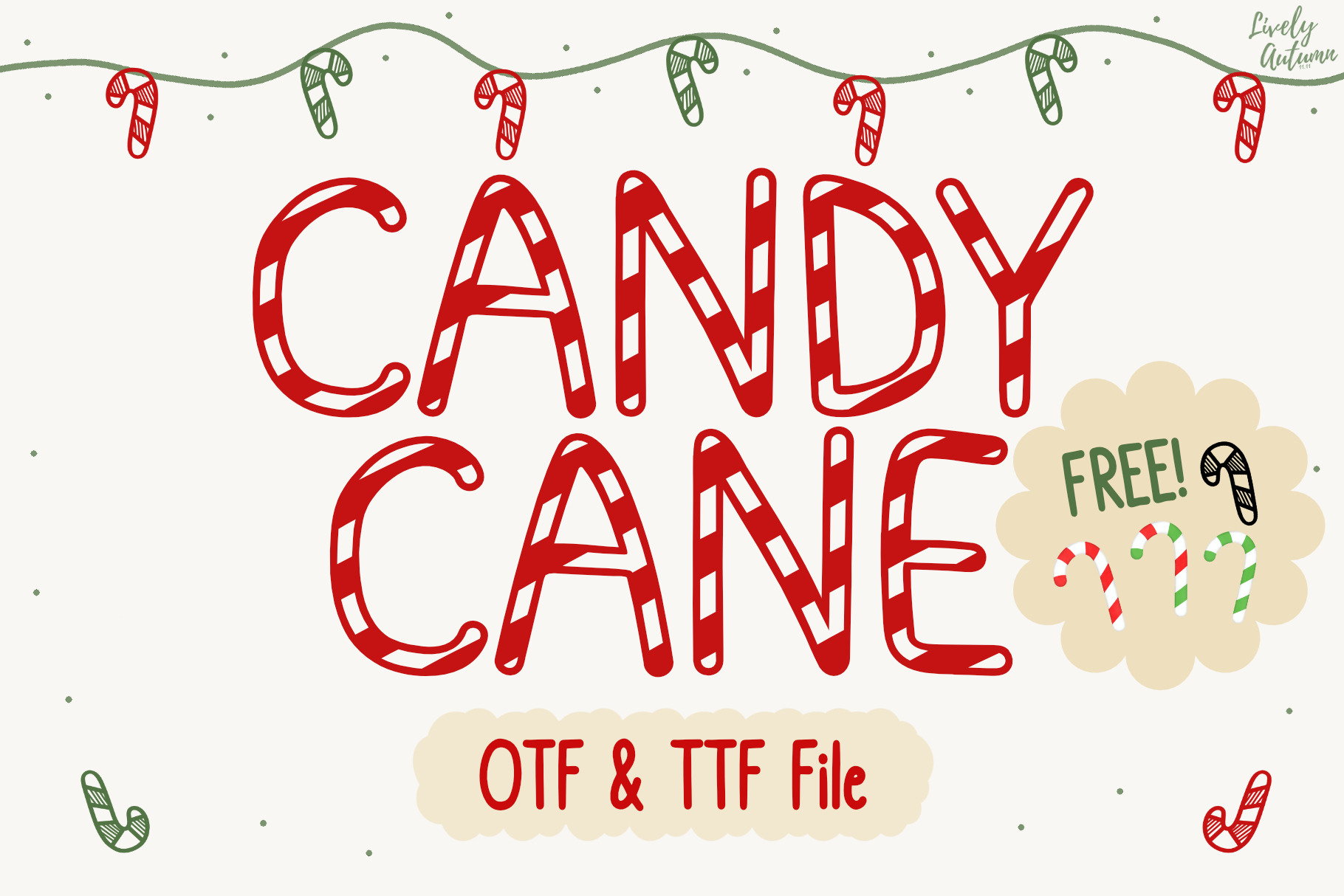
Candy cane | Christmas Display font
Candy Cane Font is a fancy handwritten display font with a candy cane stripes design. Perfect for your winter and Christmas-themed projects. From invitations to posters, social media graphics and much more.